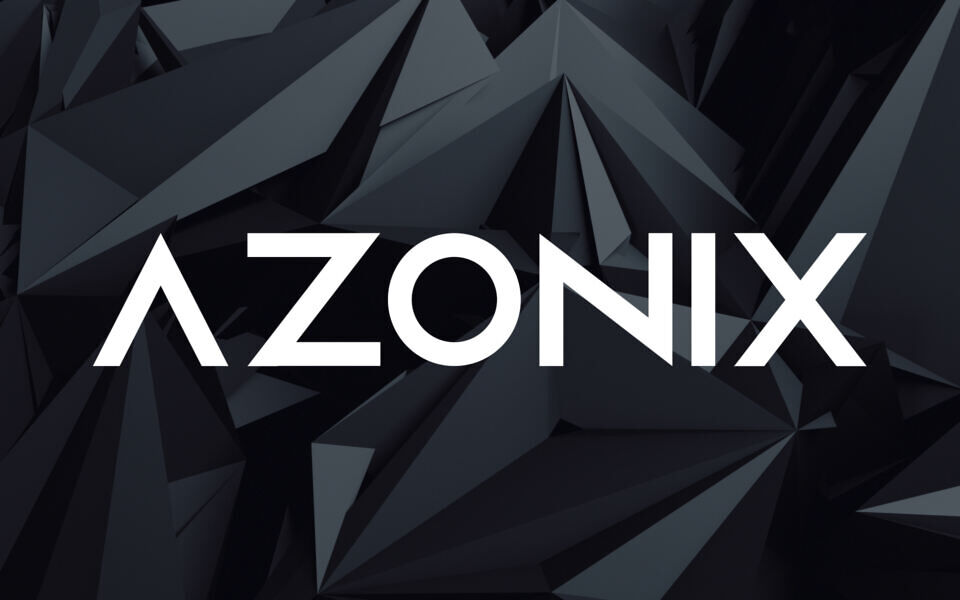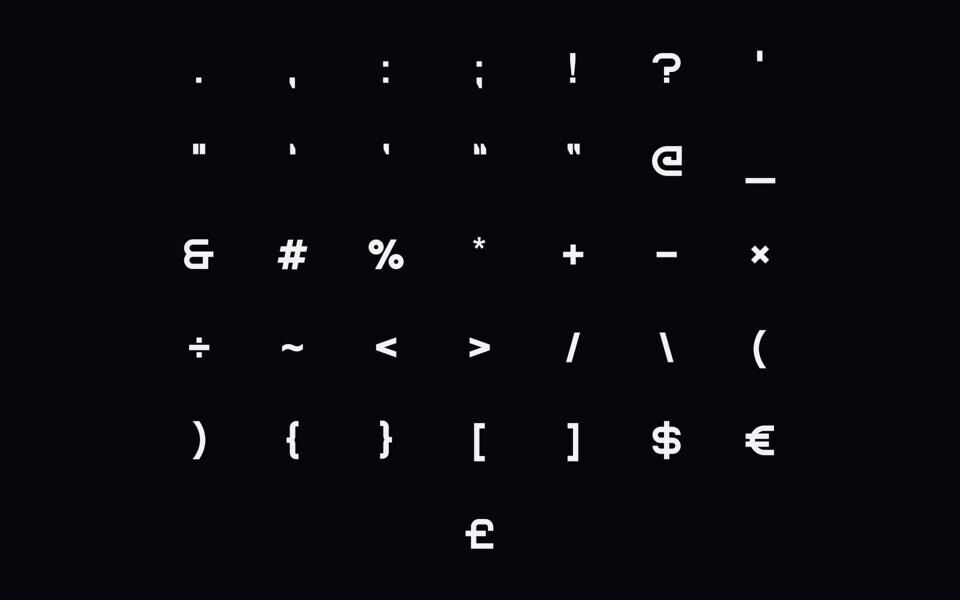
Azonix Font
Azonix is a striking sans-serif typeface that blends sharp geometry with a sleek, futuristic aesthetic. It demands attention with its bold uppercase letters, numbers, and symbols.
Its clean lines and minimal details make it ideal for headlines, logos, branding materials, posters, and any design project where you want to make a statement.